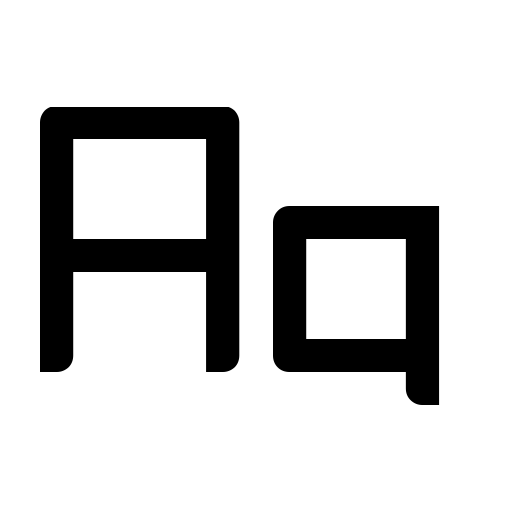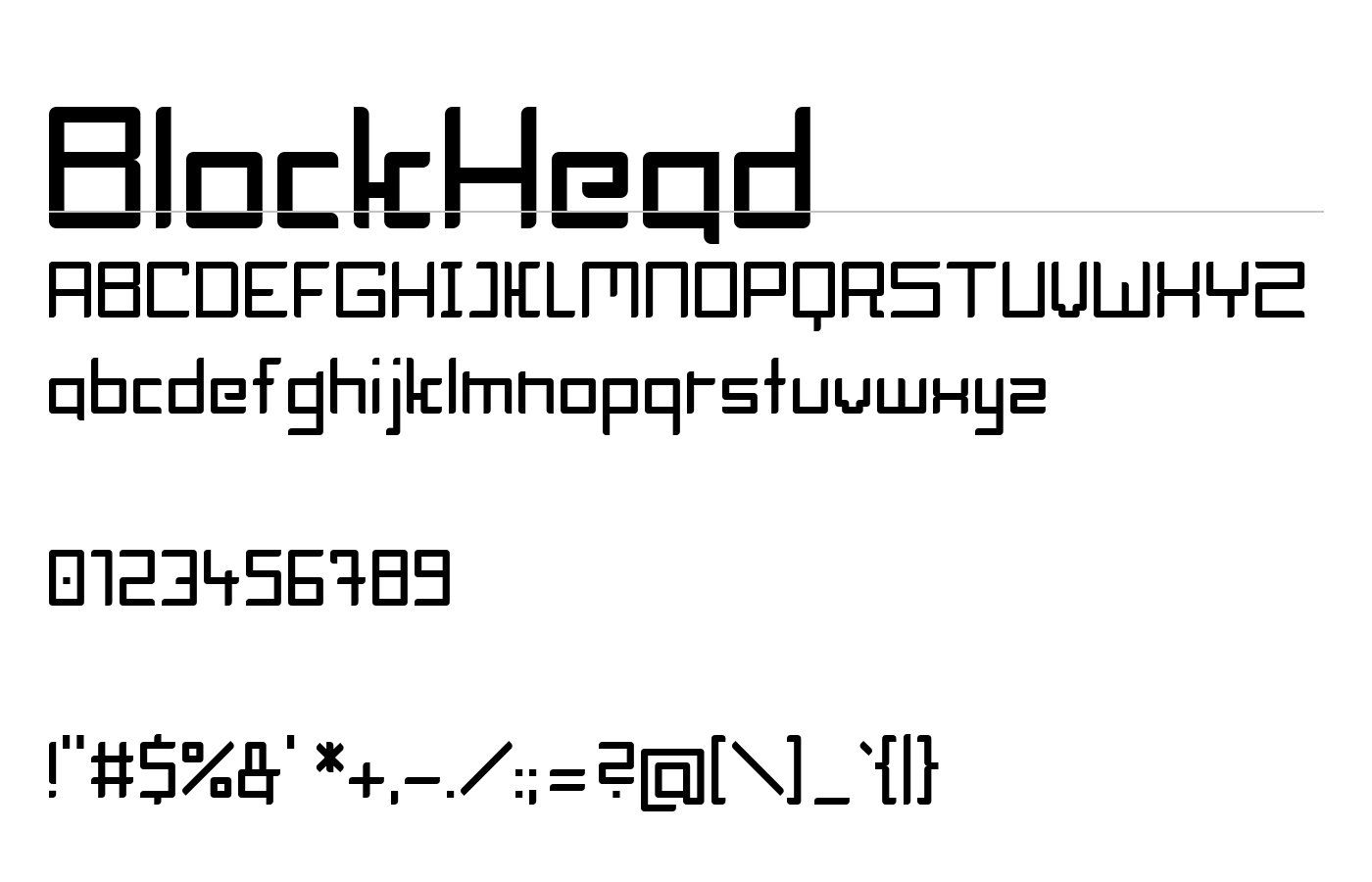
BlockHead is a modern, geometric sans serif font characterized by its squared shapes and monospaced feel, featuring consistent stroke weight and minimal contrast. Its sharp, blocky letterforms convey a technical, futuristic vibe, making it ideal for digital, tech, or industrial branding and headlines where clarity and a modern edge are key. This font stands out with its clean, structured aesthetic that works well on screens and adds a bold, contemporary twist to any design.
BlockHead Font
About BlockHead Font
| Designer | Manuel Viergutz |